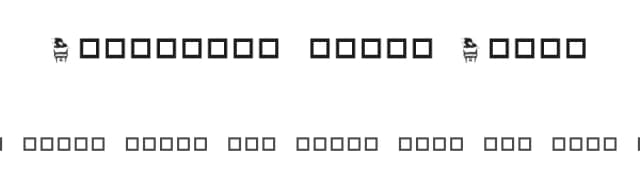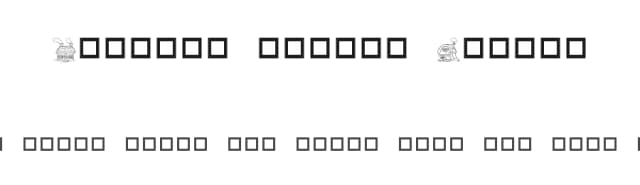
About Destiny's Teddy Dings Font
Destiny's Teddy Dings is a dingbat font designed by Destiny's Lady. It includes 14 glyphs, a regular weight, and TTF (TrueType) format. Destiny's Teddy Dings is free to download; check the license details on this page before commercial use. Dingbat fonts like Destiny's Teddy Dings work best for icons, ornaments, bullet points, and decorative accents.
Destiny's Teddy Dings Font is a versatile dingbats font that works for both headings and body text. Pair it with a contrasting sans-serif or serif font to add visual interest and a clear distinction between titles and body copy.
Destiny's Teddy Dings Font
Destiny's Teddy Dings Font is a dingbats typeface by Destiny's Lady, ideal for logos, invitations, branding, and creative projects.